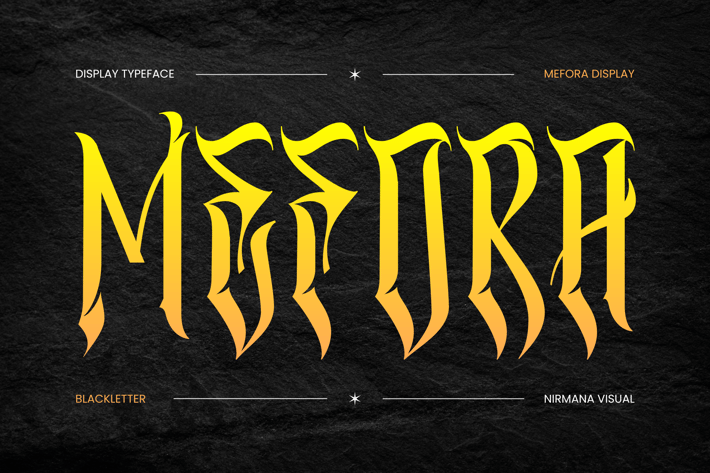
Mefora - Blackletter Logo Font
Mefora Font offers beautiful typographic harmony for a diversity of design projects, including logos & branding, social media posts, advertisements & product designs.